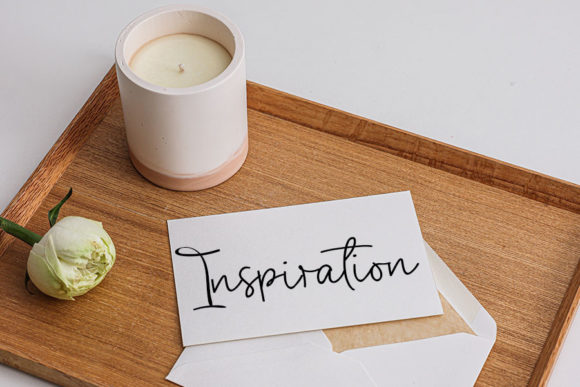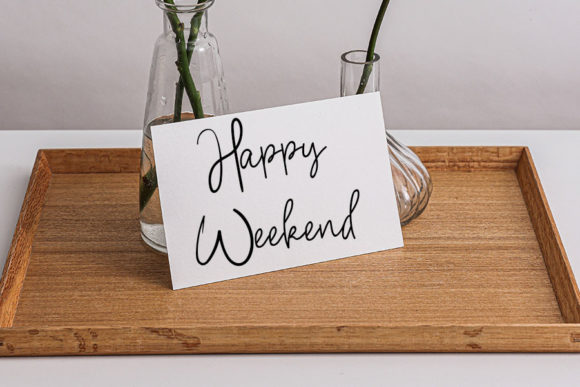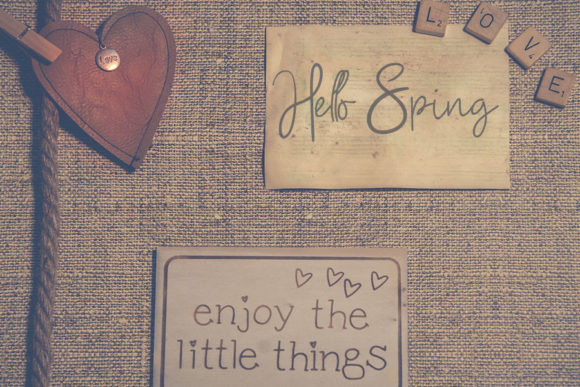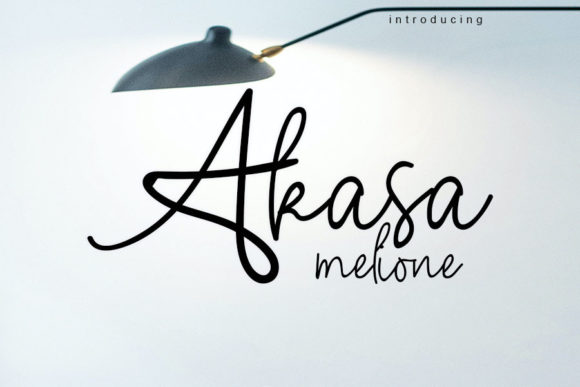
The Designer’s Delight: Akasa Melione Font
I’ll never forget the moment I stumbled upon the Akasa Melione font while working on a project for a client who wanted a elegant, yet modern touch. I had been searching for what felt like hours, trying out font after font, but nothing seemed quite right. That was until I laid eyes on Akasa Melione – it was love at first sight! ✨ The exquisite handwritten style, the classy calligraphic influences, and the contemporary freshness all combined to make it an instant favorite.
- ✨ Exquisite handwritten style that’s perfect for projects that need a personal touch
- ✅ Classy calligraphic influences that add a level of sophistication
- 🌈 Contemporary and fresh feel that’s perfect for modern designs
- 🔍 Highly legible, even at smaller font sizes
While Akasa Melione is an amazing font, there are a few things to keep in mind: 🤔
- ⚠️ Some of the more intricate glyphs can be a bit finicky to work with, especially for beginners
- ⚠️ The font may not be the best choice for very long blocks of text, as it can feel a bit too ornate
The Story Behind Akasa Melione
Akasa Melione was designed with the intention of creating a font that would be both elegant and modern. The designer, Alexandra Korczynska, drew inspiration from traditional calligraphy and combined it with a contemporary twist to create a truly unique font. The result is a font that’s perfect for designers, crafters, and creative hobbyists who want to add a touch of sophistication to their projects.
Q: What is the best way to use Akasa Melione?
A: Akasa Melione is a versatile font that can be used for a variety of projects, from formal invitations to creative crafts. Experiment with different OpenType features and glyphs to find the perfect look for your project.
Q: Is Akasa Melione suitable for long blocks of text?
A: While Akasa Melione is a beautiful font, it may not be the best choice for very long blocks of text. It’s better suited for shorter pieces, such as headings, titles, or captions.